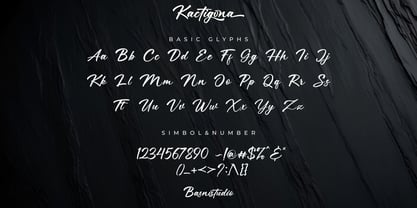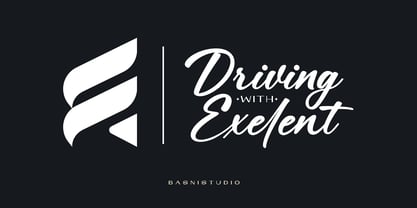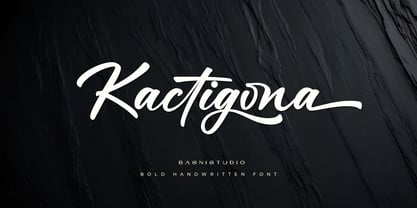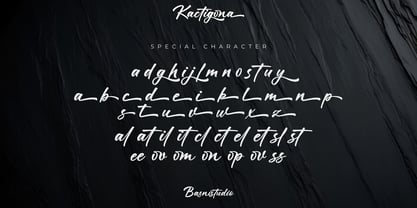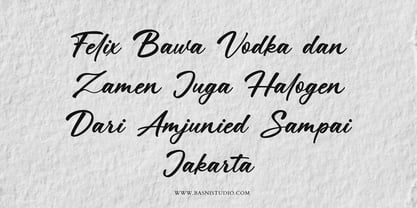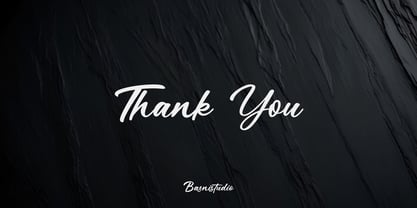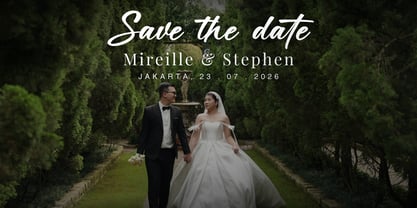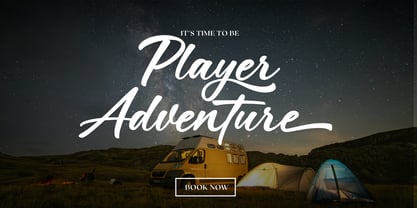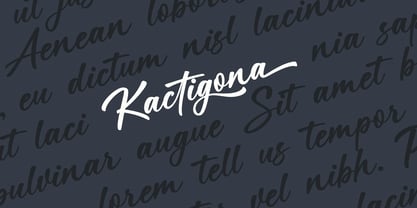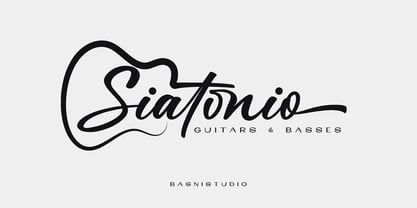
Kactigona
by Basnistudio
The Kactigona Font Family was designed by Bery Arisandi and published by Basnistudio. Kactigona contains 1 styles. More about this family
Kactigona – Bold Handwritten Font
Bold Handwritting Font Created with real pen strokes for a natural look and casual touch to everything from branding and social media to invitations and packaging.
Natural & Bold– Perfect for tagline, quotes, greeting cards, and more
Authentic Handwritten Feel – Created with real pen strokes for a natural look
Whether you’re building a powerful brand identity or crafting a standout design,
Kactigona – Bold Handwritten Font Created with real pen strokes for a natural look gives you the creative edge you need.
What’s Included:
• Uppercase & lowercase letters
• Swashes
• ligatures
• Numbers & punctuation
• Multilingual Support ( Support for 90 languages )
Designers: Bery Arisandi
Foundry: Basnistudio